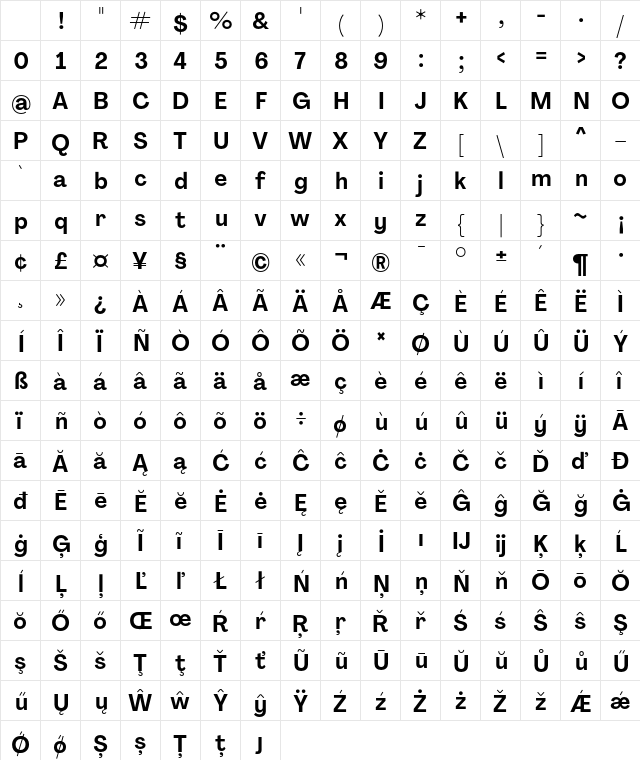
Agrandir Text is a composed and adaptable typeface that performs quietly and consistently across a wide range of design contexts. Its bold stroke weight gives it real presence on the page.